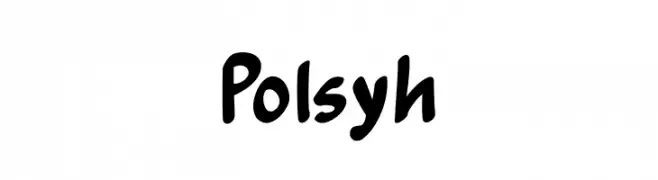
About the Comic fonts
Comic fonts give a clear voice to projects that want distinct personality and practical readability. Use them for headlines, logos, product pages, and web design where the tone must be instant and memorable. This category balances aesthetics with function: strong shapes, considered spacing, and rhythm that holds up on high density screens and print. Keep body text in a neutral companion face and let the category style lead the first impression. Good use cases include brand launches, landing pages, editorial hero sections, packaging, and motion graphics. For best results, set large sizes with generous line spacing and clear contrast. Pair with a restrained color palette and let white space support the typography. Avoid overusing effects; clarity and hierarchy make the design feel intentional and premium. Test at mobile sizes to ensure legibility and adjust tracking if letters feel tight. Combine with supportive icons or imagery, but keep type the main character so the voice stays consistent across channels. Explore related styles for complementary pairings and alternative moods: Industrial, Stylish, Wavy, Liquid. Mix and match for seasonal campaigns, special editions, or microbrands without losing cohesion.
( Fonts by adroitwhiz )
A playful, bold, and hand-drawn font with rounded edges.
( Fonts by www.fontalicious.com )
A bold, jagged font with an irregular, hand-cut appearance.
( Fonts by www.fontalicious.com )
A playful and bold font with dynamic curves and angles.
( Fonts by Press Gang Studios - Andeh Pinkard - www.pressgang-studios.com )
A bold, playful handwritten font with a dynamic and informal style.
A bold, playful font with rounded, hand-drawn characteristics.
( Fonts by 4RM Font )
A bold, playful font with thick, whimsical characters ideal for fun projects.
( Fonts by 4RM Font )
A bold, playful font with thick, rounded, and slightly irregular characters.